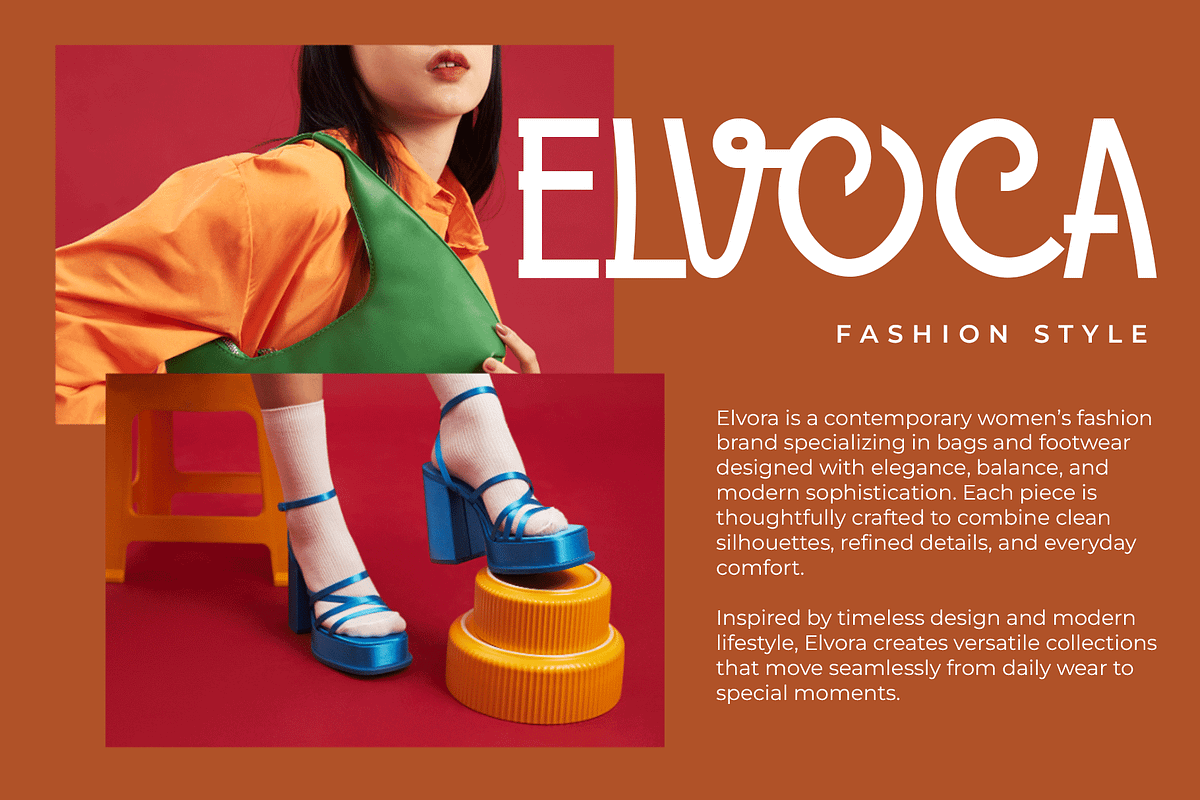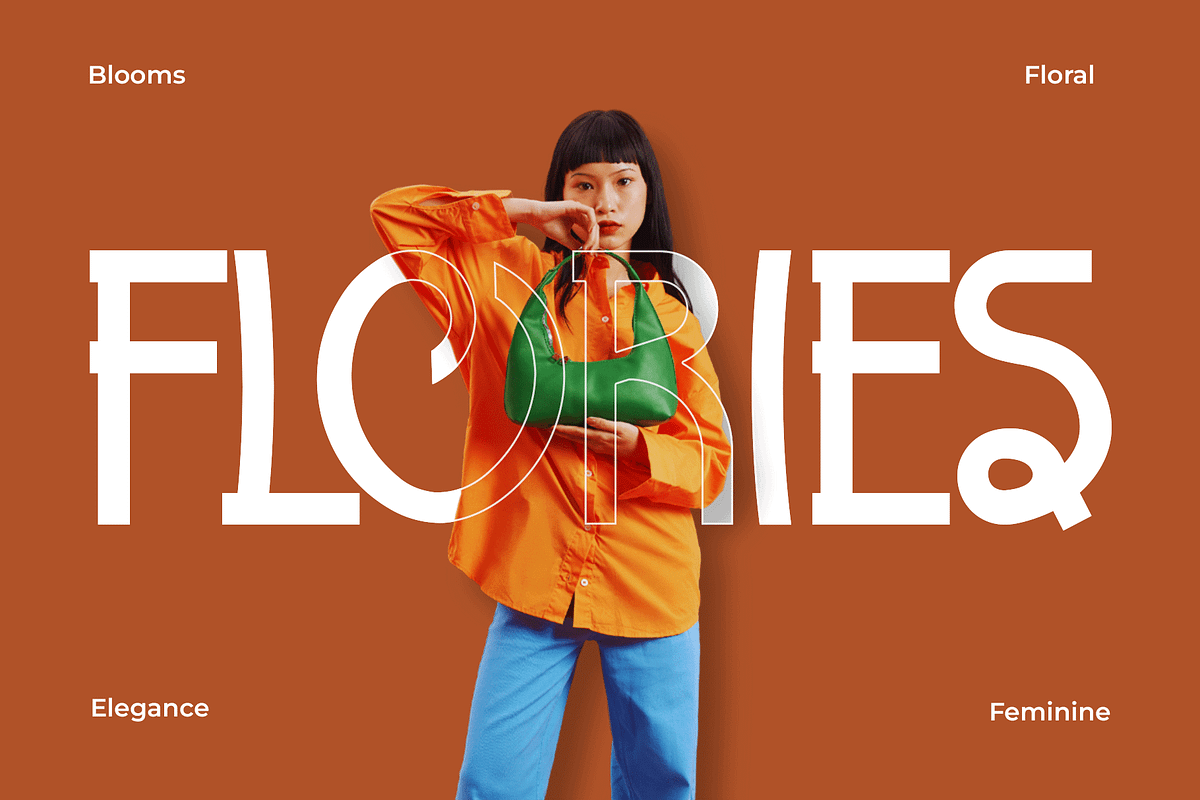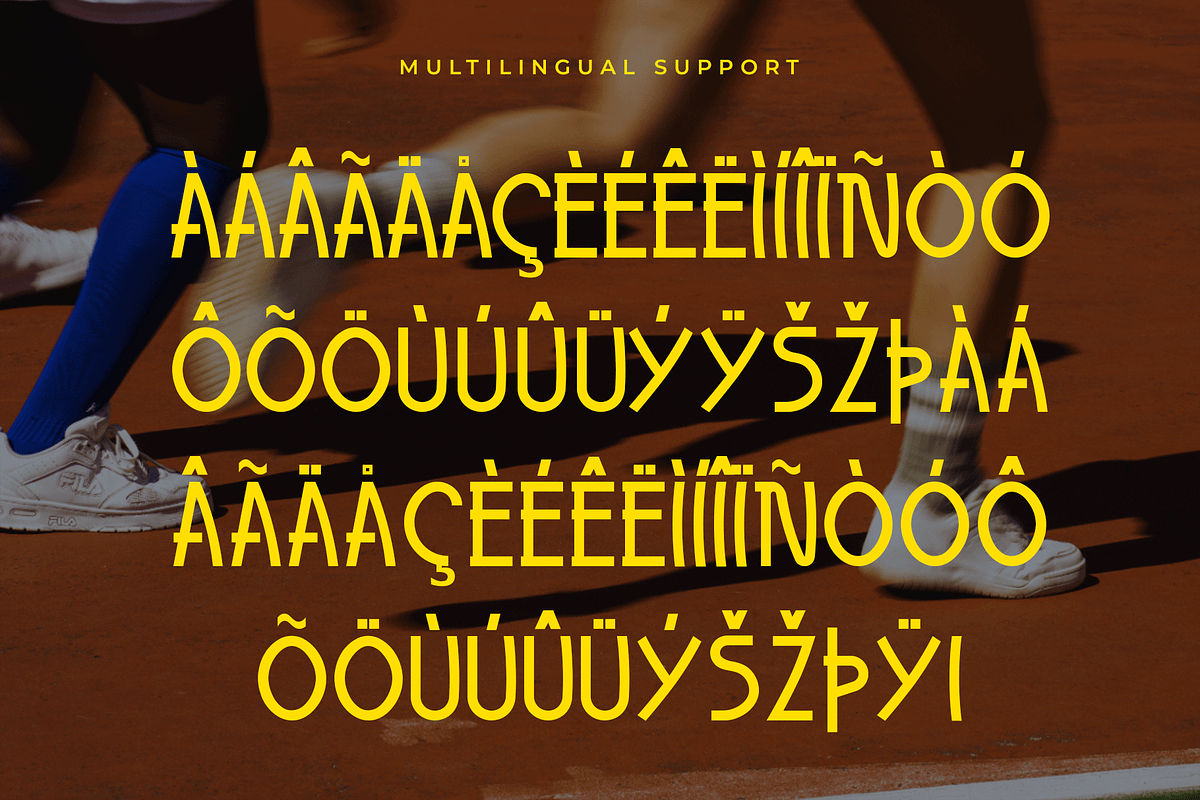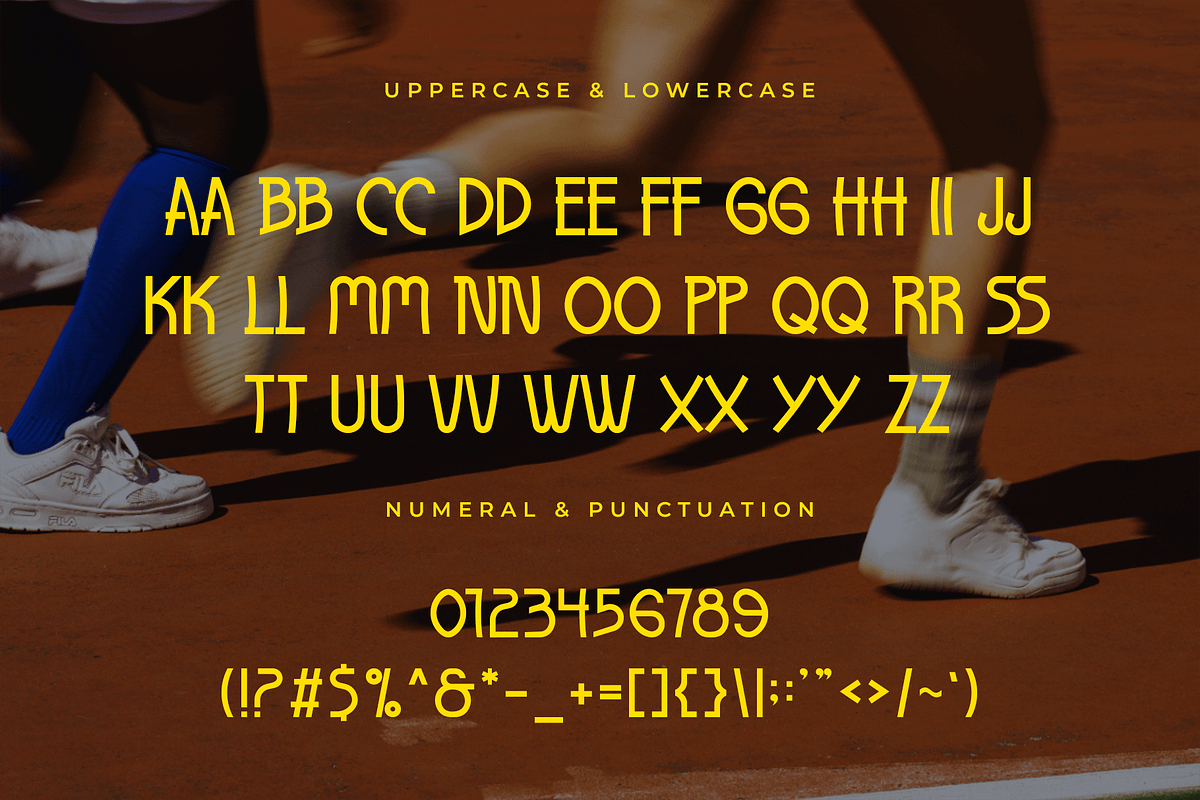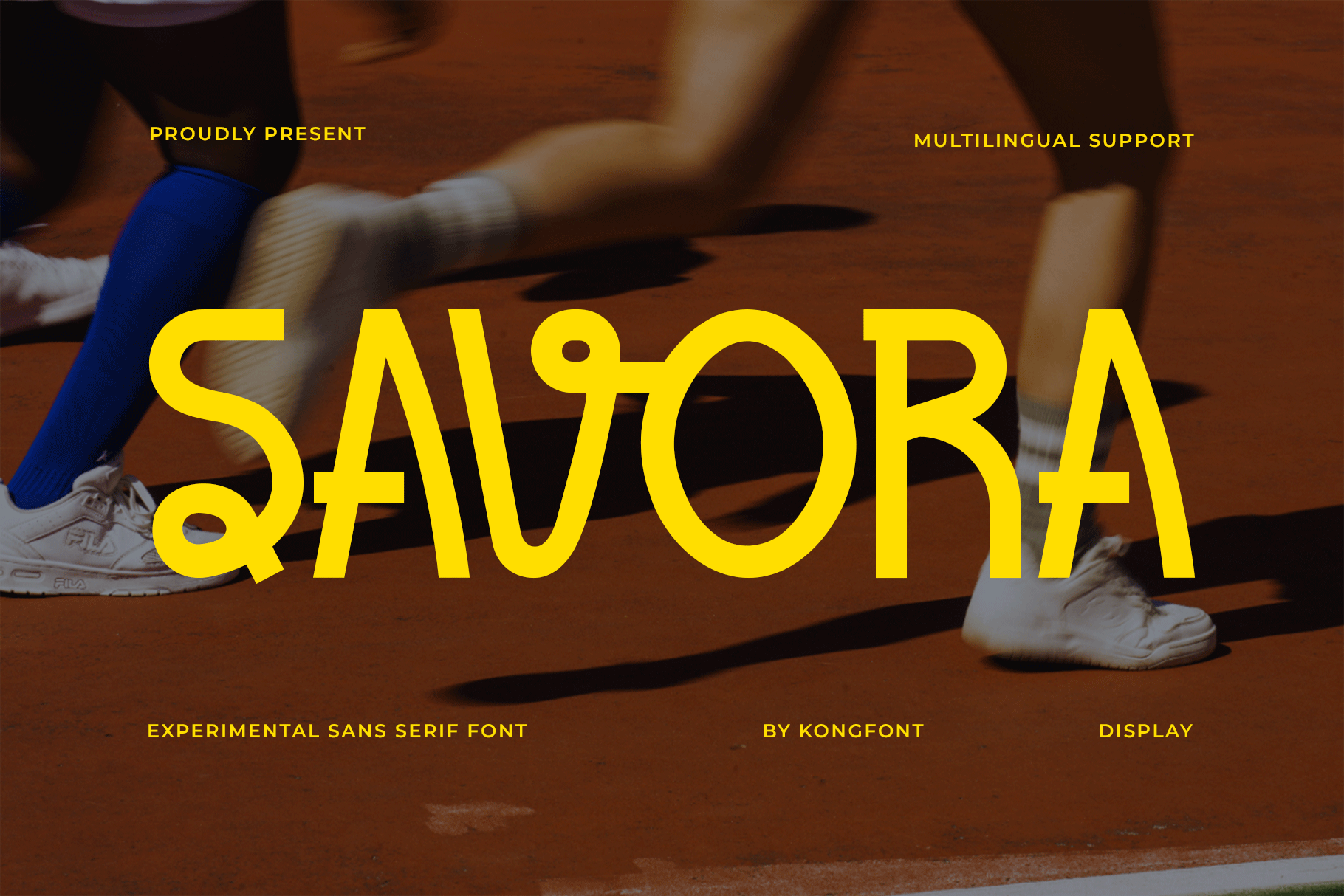
Savora - Experimental SansSerif Font
Savora - Experimental Sans Serif Font
Introducing Savora, an experimental sans serif font designed to push boundaries and challenge traditional typographic forms. With its unconventional shapes, distinctive cuts, and modern structure, Savora delivers a bold visual statement that feels fresh, artistic, and forward thinking.
Savora includes uppercase and lowercase letters, numerals, punctuation, and multilingual support, offering flexibility for creative professionals who want typography that stands apart from the ordinary. Whether you're designing conceptual visuals or building an expressive brand identity, Savora transforms typography into an artistic experience.